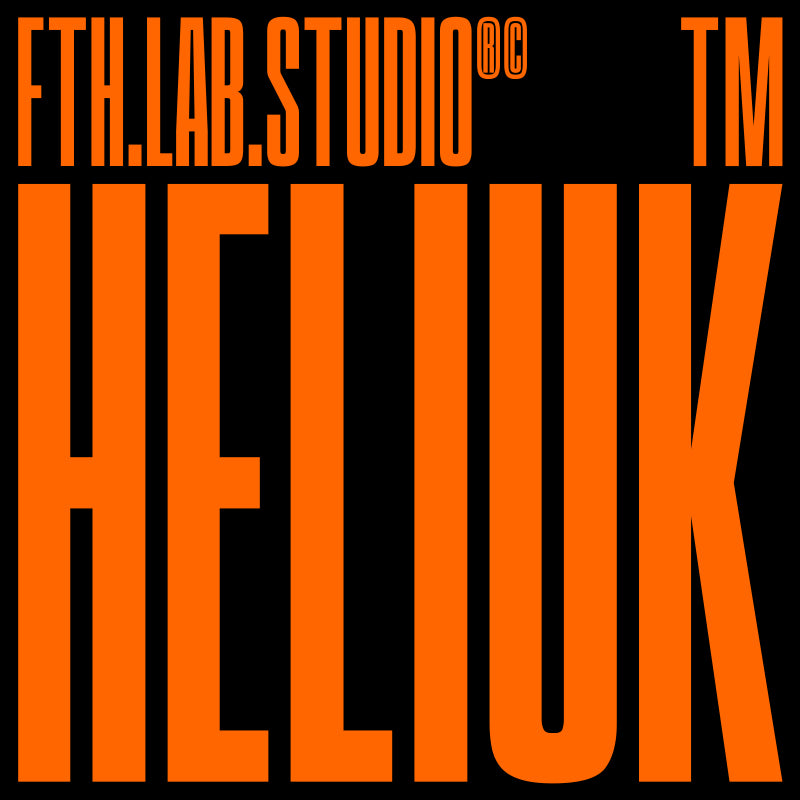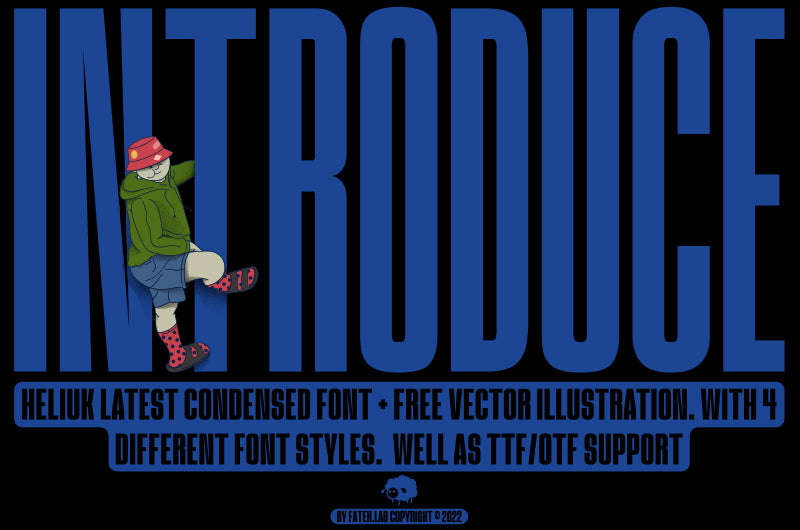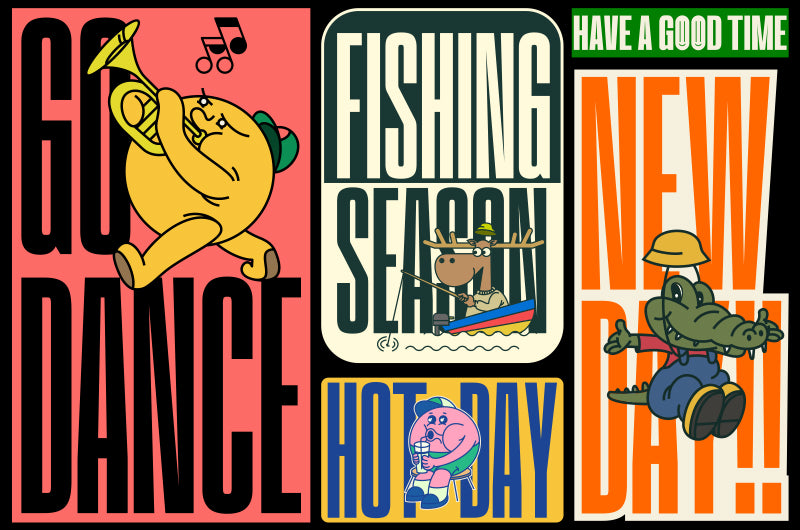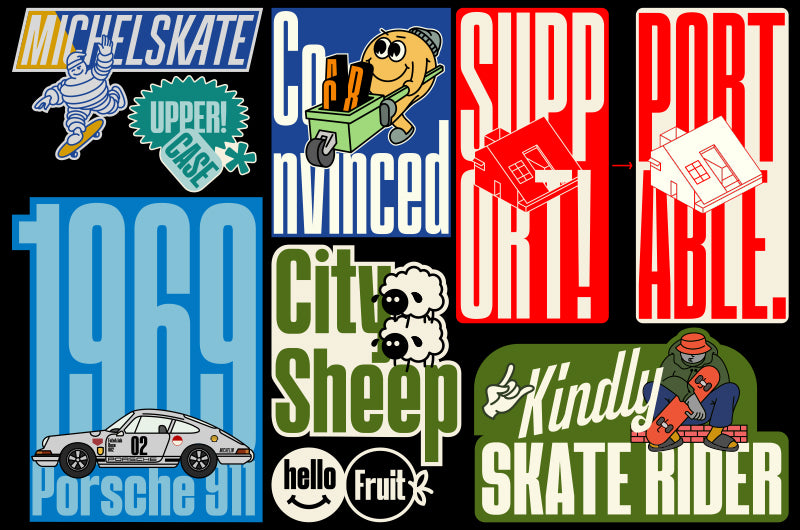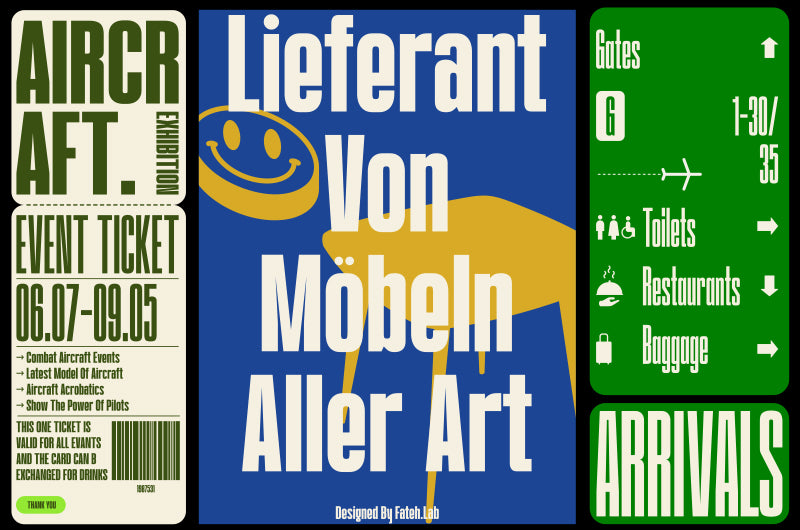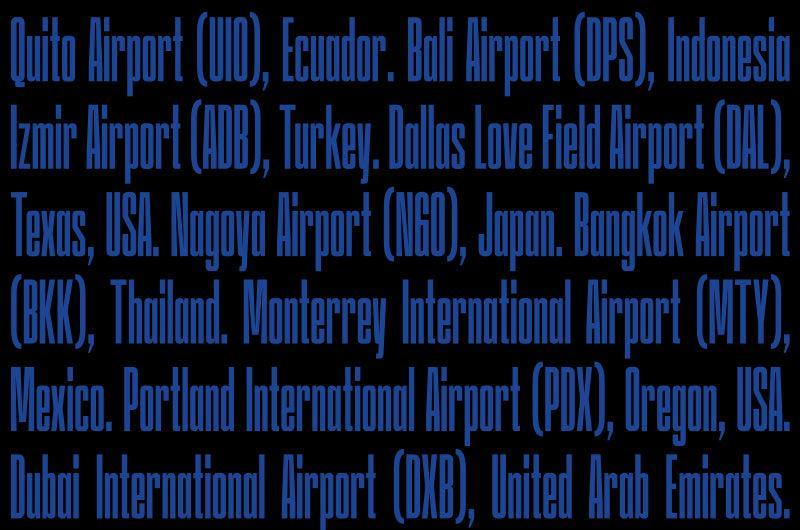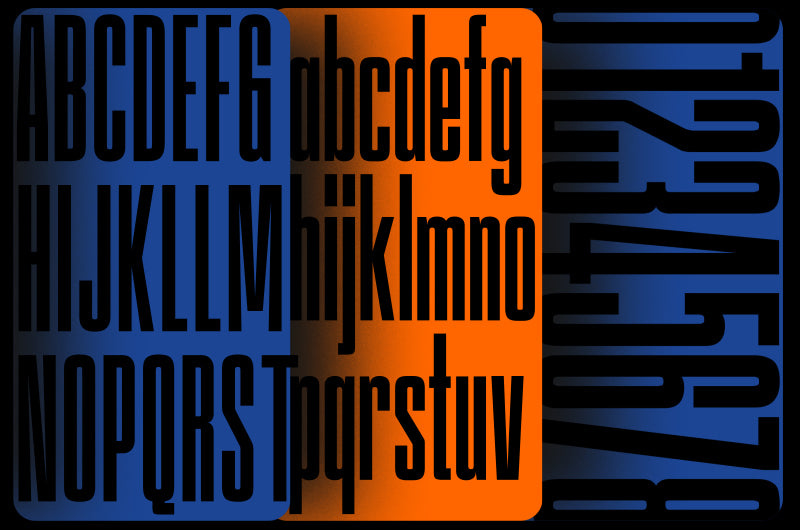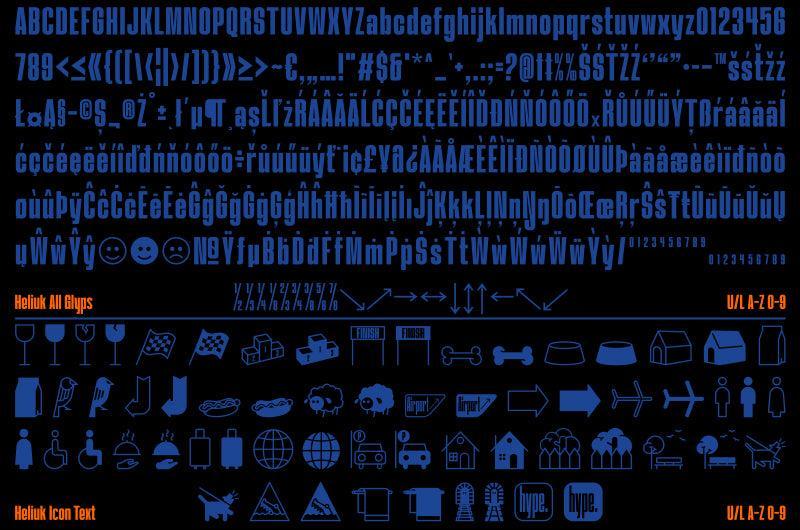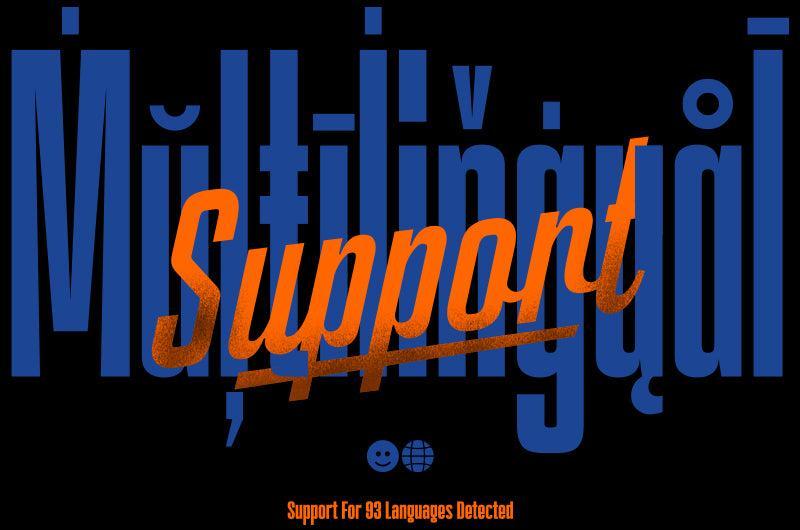
Heliuk | Condensed Font
Heliuk is a condensed font featuring a strong yet soft character, available in four styles. It includes a free vector bonus and is designed to suit a variety of design projects, making it a versatile choice for various applications.